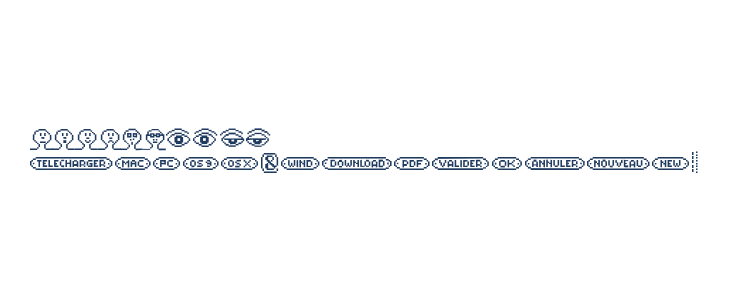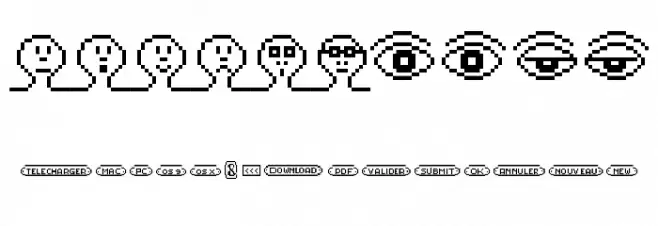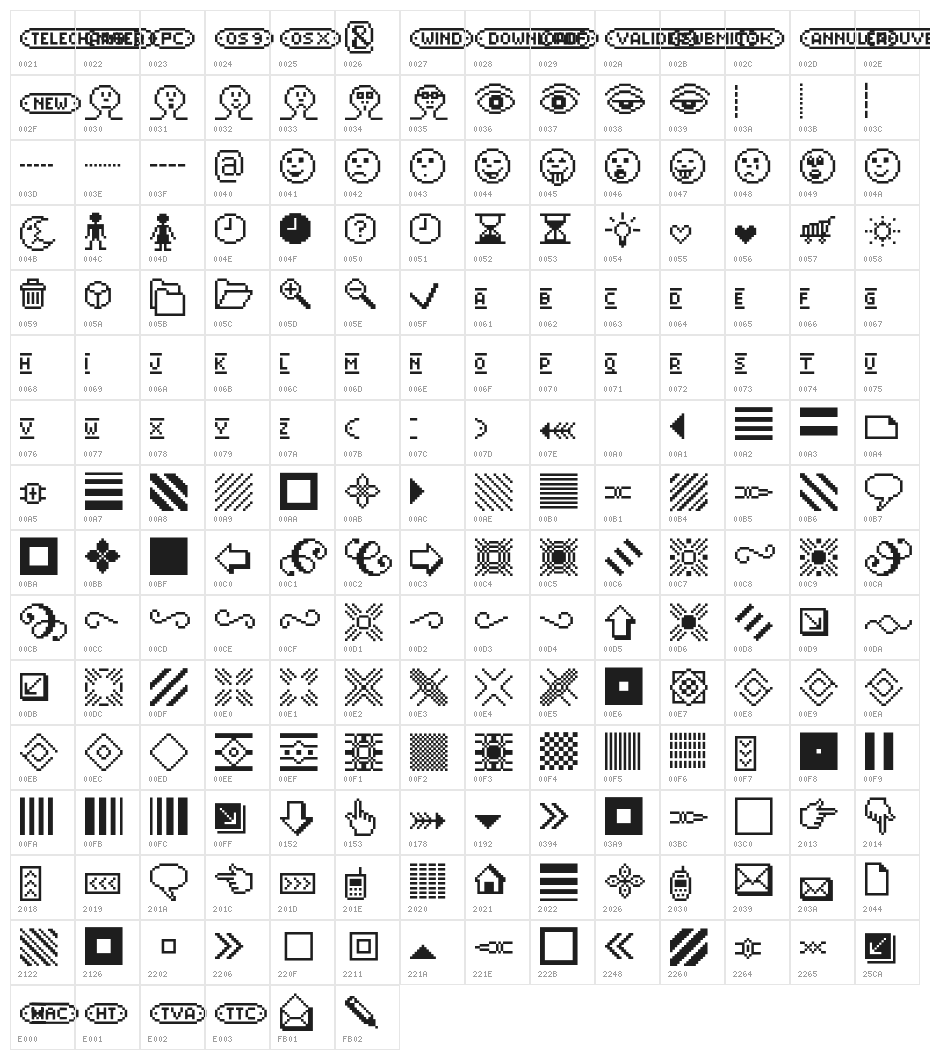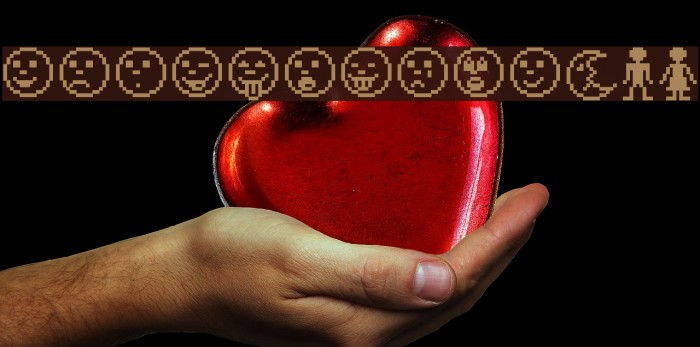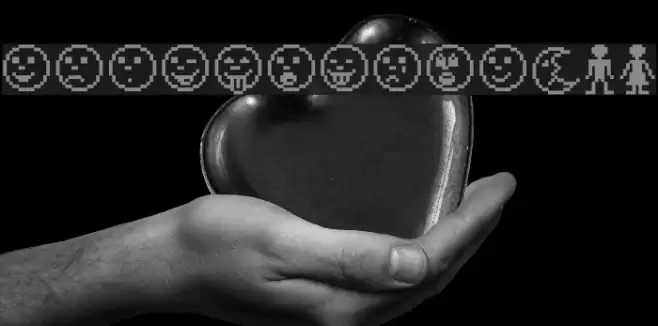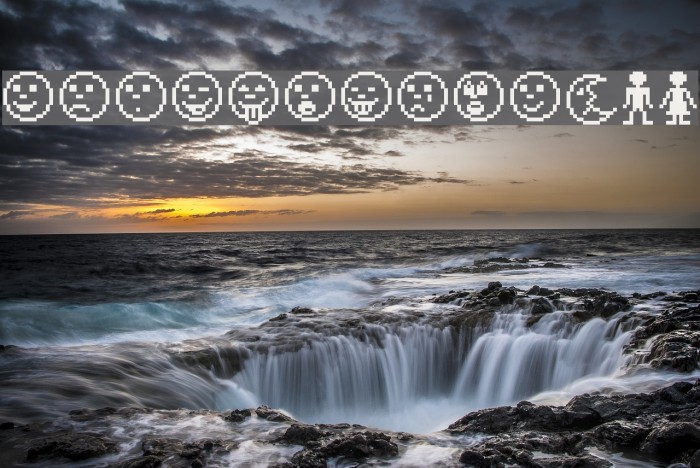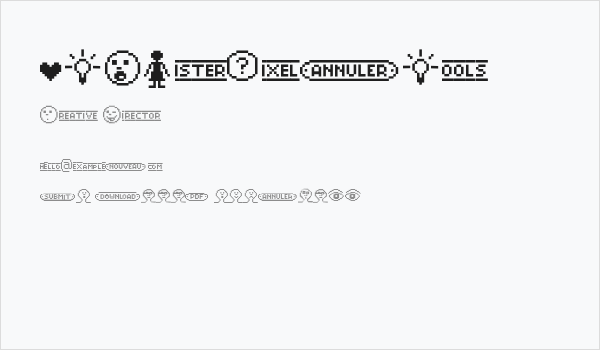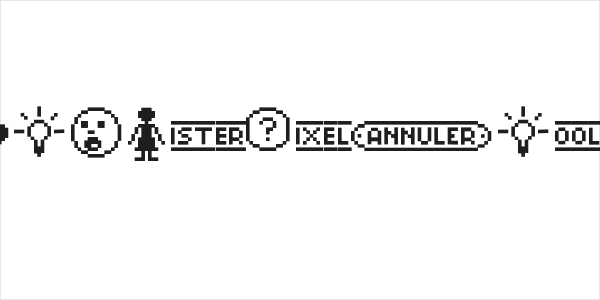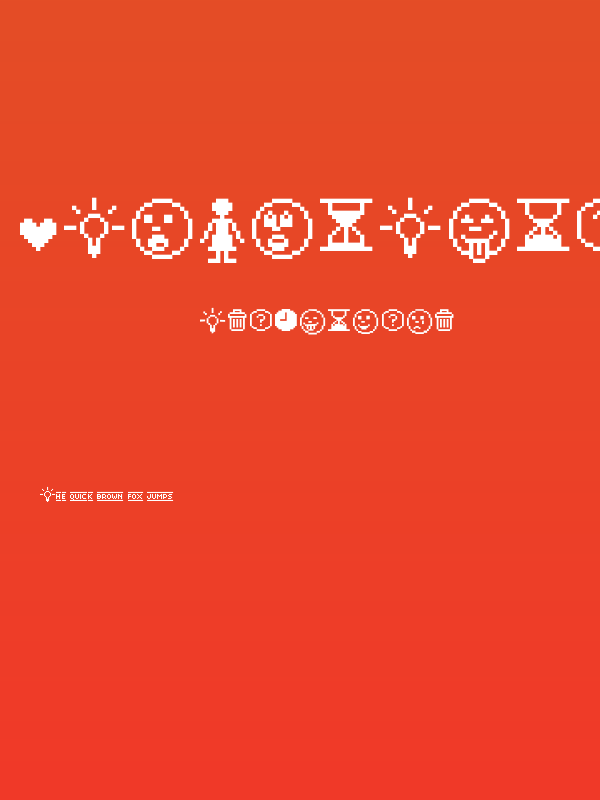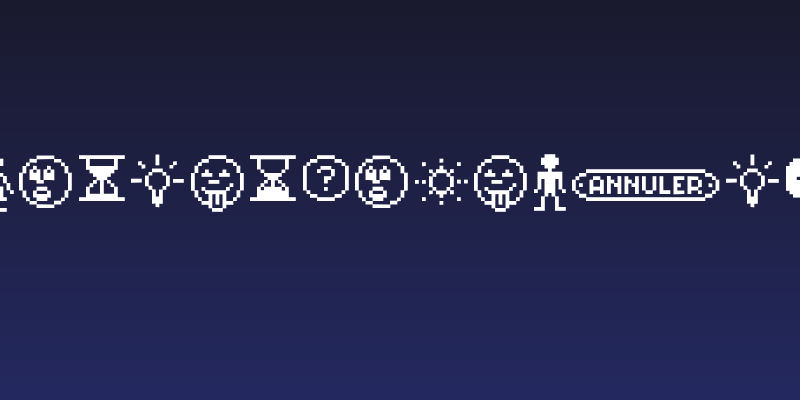
VTFMisterPixel-Tools Font
VTFMisterPixel-Tools Description
This font features a pixelated, blocky design reminiscent of classic video game graphics. Each character is constructed with a grid-like precision, giving it a retro digital appearance. The uppercase letters are bold and uniform, with consistent height and width, creating a cohesive look. The font is strictly uppercase, emphasizing its use in display settings where impact and readability are key. The pixelated style adds a nostalgic touch, making it ideal for projects that aim to evoke a sense of vintage digital aesthetics. The characters are evenly spaced, ensuring clarity and legibility even at smaller sizes. This font is perfect for creative projects that require a playful yet structured typeface.